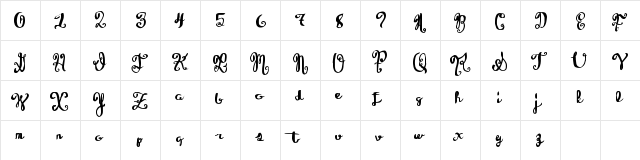
WineTasting Regular
Design Context for WineTasting Typeface
WineTasting is a composed and adaptable typeface that performs quietly and consistently across a wide range of design contexts.